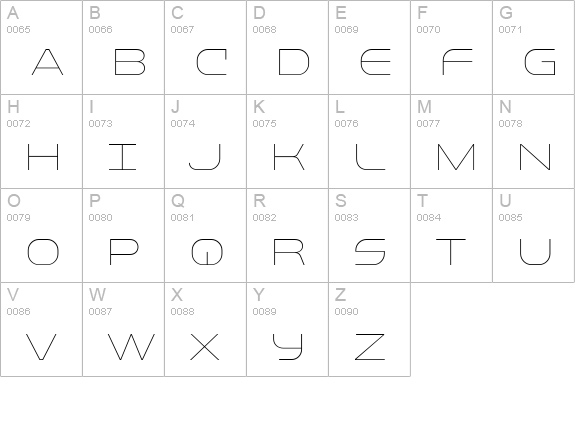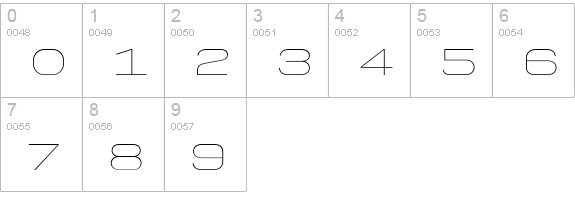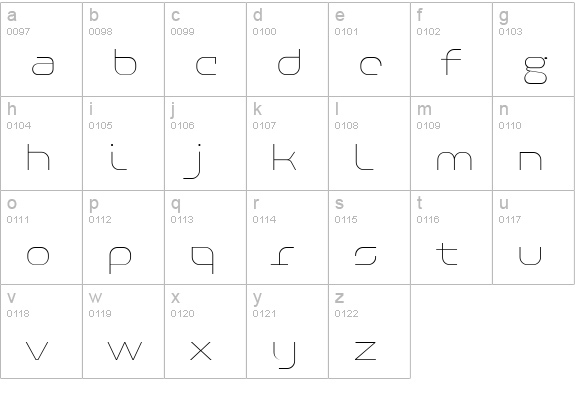
PFBaselinePro-ExtraThin Font Details
PFBaselinePro-ExtraThin is a sleek and elegant font that exudes sophistication and modernity. With its ultra-thin strokes and clean lines, this font is perfect for creating a minimalist and stylish look in your design projects. Whether you are designing a logo, a website, or a print piece, PFBaselinePro-ExtraThin will add a touch of refinement and class to your work. The best part is that PFBaselinePro-ExtraThin is available for free download at FontsMarket.com. This means you can easily access this high-quality font without any cost, making it a valuable addition to your font collection. Don't miss out on the opportunity to elevate your designs with the beauty and versatility of PFBaselinePro-ExtraThin. Download it today and see the difference it can make in your projects.